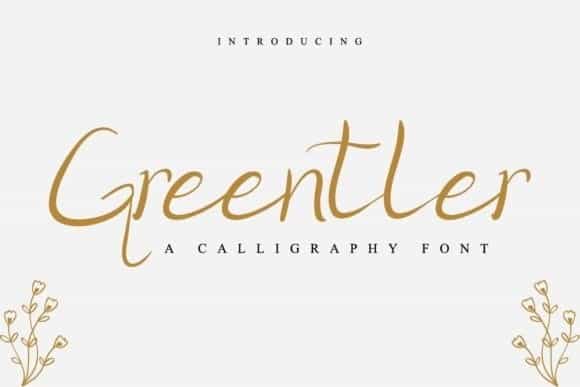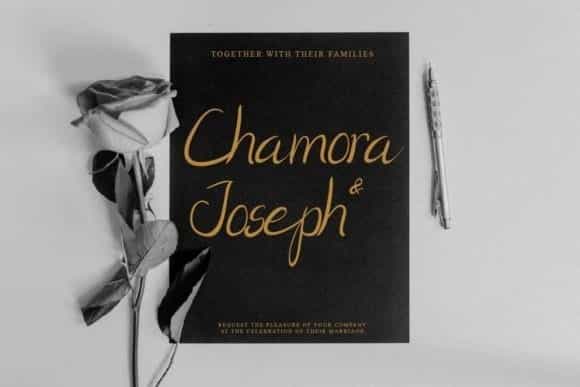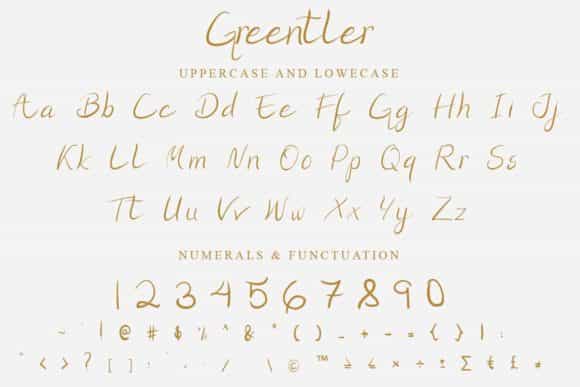
Greentler is a Calligraphy script font that has the stylish and elegant looks. The main style of the hand-lettering script will be very interesting if it is combined with a variety of Alternates (Capital letters) and also Stylistic Sets that are appropriate.